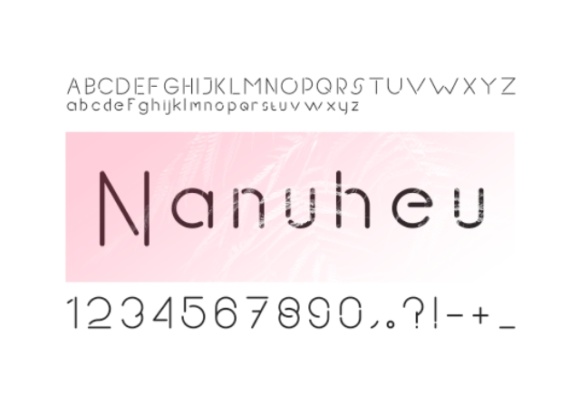
Prepare to be mesmerized by the Nanuheu Font, a decorative masterpiece crafted by the ingenious Wudel Mbois. This font is a symphony of elegance, designed to captivate and inspire. With its intricate details and captivating curves, Nanuheu is the perfect choice for those seeking to make a bold statement in their creative endeavors.
Immerse yourself in the world of UI/UX and web design with Nanuheu, the font that transforms the ordinary into the extraordinary. Its versatile nature allows you to effortlessly create stunning interfaces, captivating logos, and mesmerizing headlines that leave a lasting impression. Unleash your creativity and let Nanuheu be your guide as you embark on a journey of visual storytelling.
With Nanuheu, you're not just downloading a font; you're acquiring a versatile tool that empowers you to elevate your designs to new heights. Its meticulous craftsmanship ensures that every letter, every stroke, and every curve is rendered with precision. Experience the joy of working with a font that responds seamlessly to your creative vision, allowing you to effortlessly craft designs that resonate with your audience.
Nanuheu is more than just a font; it's an invitation to embark on a creative adventure. It's a font that ignites your imagination, propels your ideas forward, and leaves your audience in awe. Whether you're a seasoned designer or just starting out, Nanuheu is the perfect companion for your creative journey. Embrace its captivating charm and watch as your designs take on a life of their own.
Don't let ordinary fonts hold you back. Embrace the extraordinary with Nanuheu. Dive into a world of creativity and experience the transformative power of this stunning decorative font. Let Nanuheu be your secret weapon, your creative muse, and your passport to design greatness. Unleash the Nanuheu Font today and embark on a journey of visual storytelling that will leave your audience spellbound. Let your creativity soar and let Nanuheu be your guide.